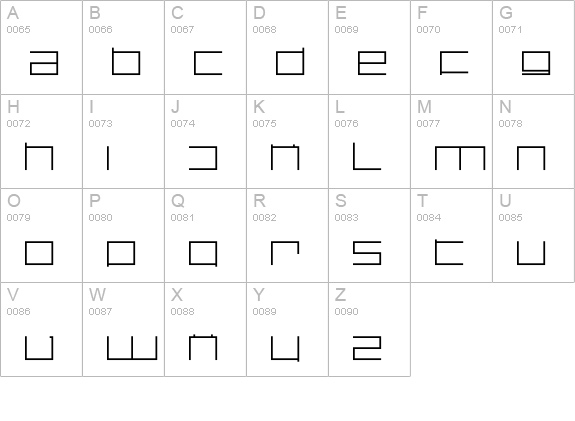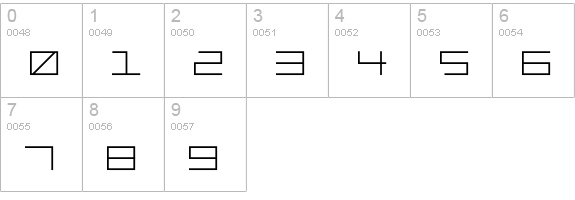
DS SQR35 Font Details
DS SQR35 font is a modern and stylish typeface that is perfect for a wide range of design projects. With its clean lines and contemporary feel, this font is sure to make your text stand out. The best part is that DS SQR35 is available for free download at FontsMarket.com. Whether you're working on a website, a logo, or a print design, this versatile font is a great choice. Don't miss out on the opportunity to add this fantastic font to your collection today!